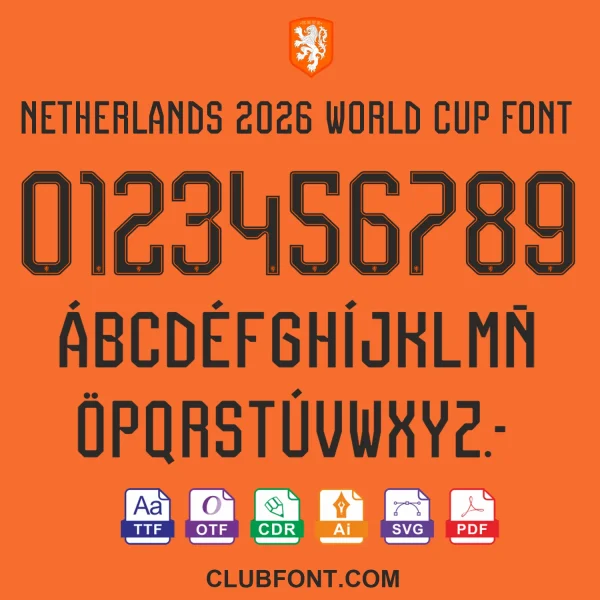
Elevate your sports merchandise with the Netherlands 2026 World Cup Font!
🇳🇱 Official-Style Netherlands 2026 World Cup Typeface
Are you ready for the 2026 tournament? The Netherlands 2026 World Cup Font is your ultimate asset for custom jerseys, banners, and social graphics. Meticulously crafted to mimic official football kits, this font ensures your projects look professional and game-day ready.
🔥 Why Choose This Font Kit?
Optimized for sports and athletic branding, this package features bold, blocky characters with perfect kerning. Highly legible from a distance, it is ideal for jersey printing and large-scale event designs.